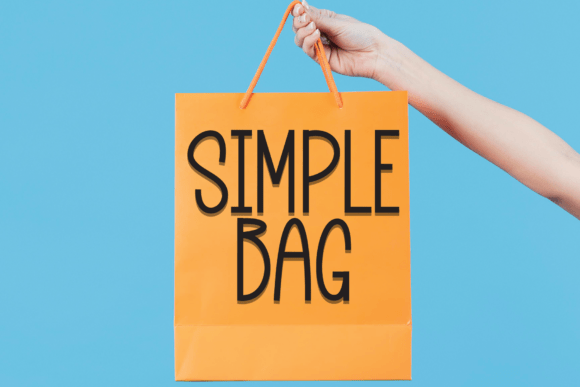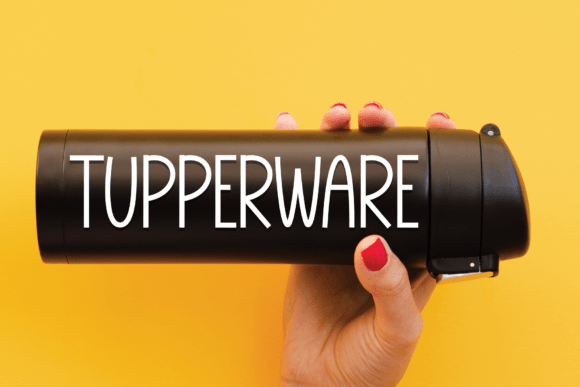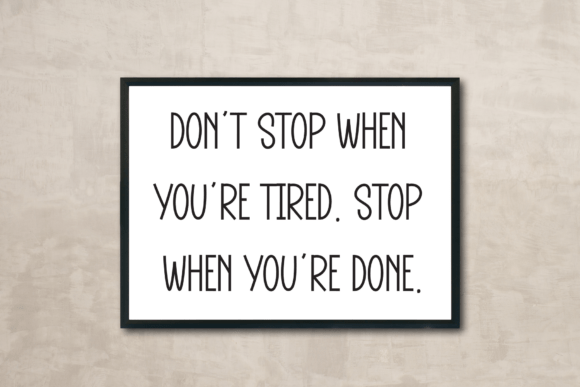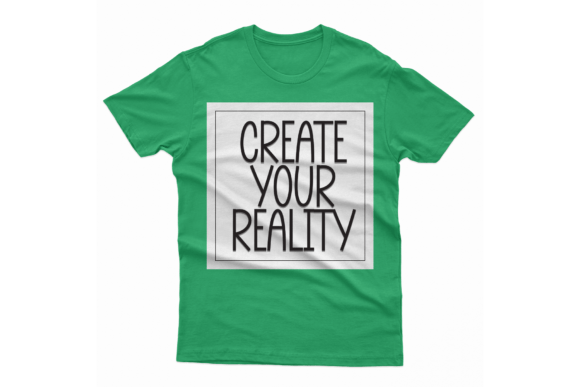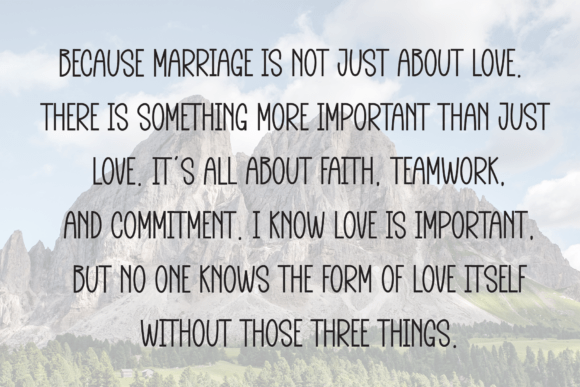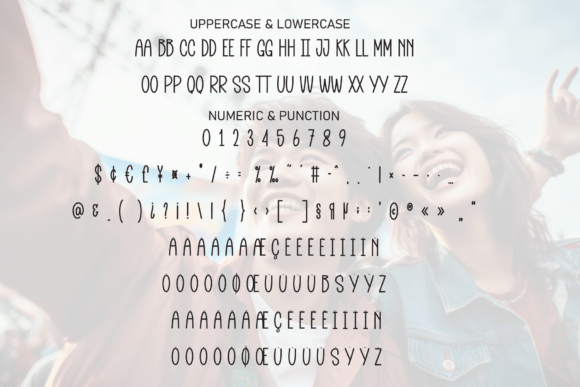
The Whimsy of Best Forever Font: Where Creativity Meets Charm
As a designer, you’ve probably experienced that moment when a font suddenly sparks an idea, and your creative vision comes to life. For me, it was the realization that a handwritten font can elevate a simple wedding invitation into a heartwarming masterpiece. This epiphany led me to discover the enchanting Best Forever Font, a display font that embodies the perfect blend of whimsy and elegance.
This font is more than just a pretty face – it’s a valuable tool for designers seeking to add a personal touch to their projects. With Best Forever Font, you can infuse your designs with a playful, handwritten feel that’s sure to captivate your audience. Whether you’re crafting wedding invitations, cards, or any other creative project, this font is sure to bring a delightful touch that sets your work apart.
Best Forever Font Key Features
- Unique Characteristics: Features a unique blend of modern and vintage elements, creating a timeless and elegant appearance.
Best Forever Font Review
As a designer, I’ve had the chance to work with “Best Forever Font” and I must say, it’s a decent addition to any digital project. ✨ Here are some things that stood out to me:
- Legibility: The font is easy to read, even at smaller font sizes. This is a major plus, especially for body text.
- Flexibility: Best Forever Font comes in a range of weights and styles, making it easy to customize for different uses.
- Neutral feel: The font has a clean, neutral look that won’t distract from the content.
However, there are some limitations to consider: ⚠️
- Lack of personality: While the font is clean and easy to read, it’s not particularly memorable or unique.
- No clear brand identity: The font doesn’t have a strong, distinctive feel that would make it stand out in a crowded market.
- Not ideal for headlines: While it’s great for body text, Best Forever Font isn’t the best choice for headlines or titles, as it can come across as a bit too generic.
Overall, Best Forever Font is a solid choice for digital projects where readability is key. However, if you’re looking for a font with a bit more personality or flair, you might want to consider other options.
Getting the Most Out of the Best Forever Font
Use the Best Forever Font to add a touch of elegance and sophistication to your designs. Experiment with different font sizes, colors, and combinations to find the perfect look for your project.
Common use cases include:
1. Wedding invitations and stationery.
2. Luxury branding and marketing materials.
3. High-end event and party invitations.